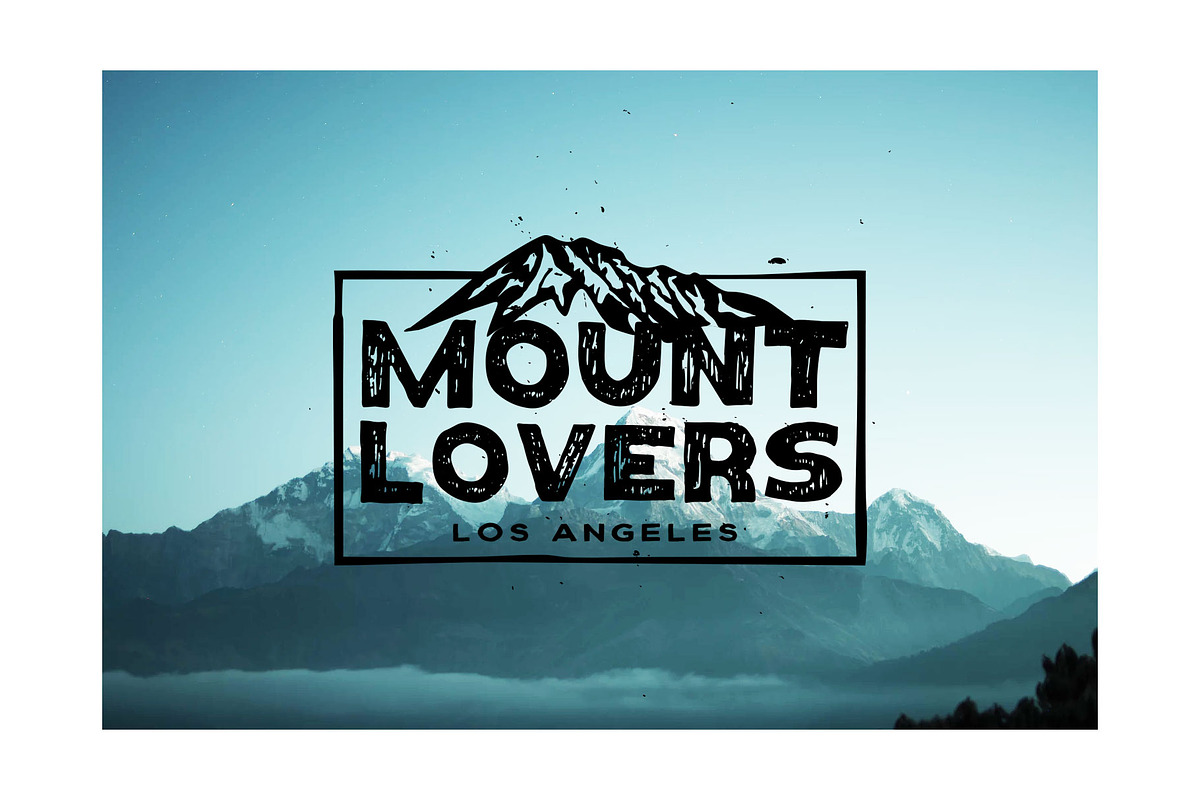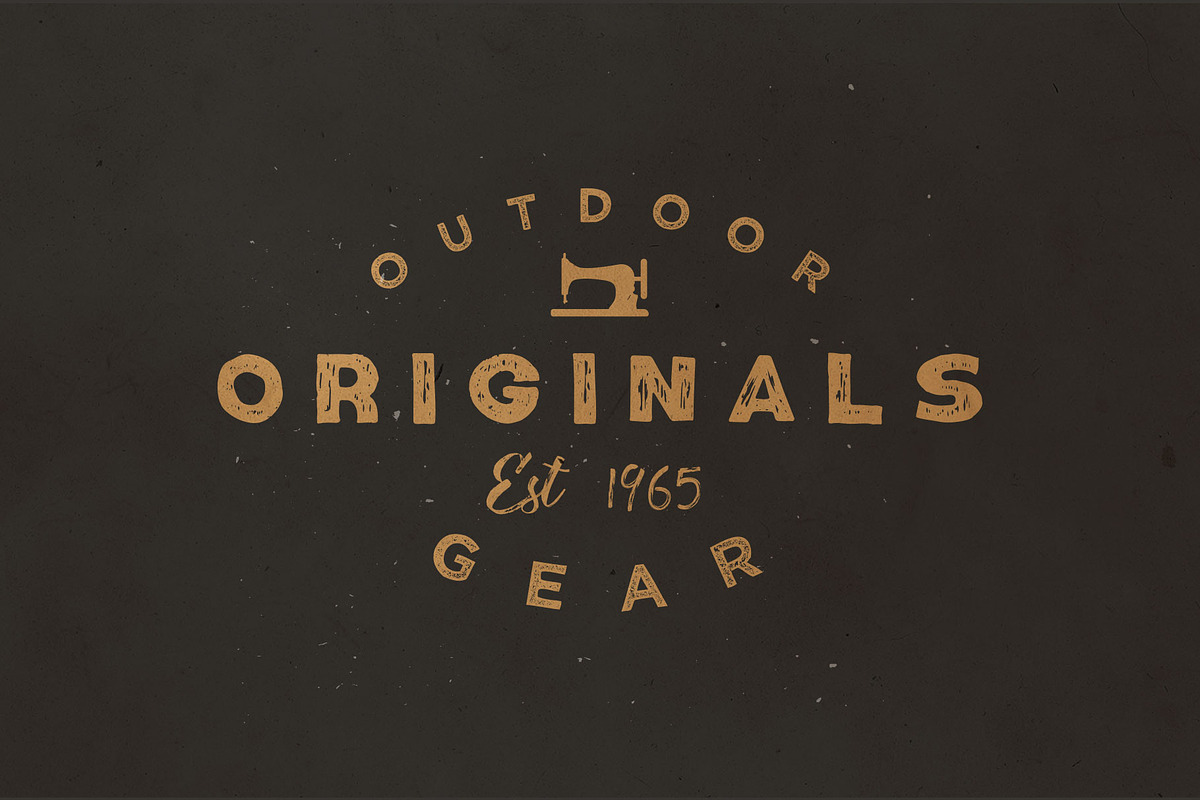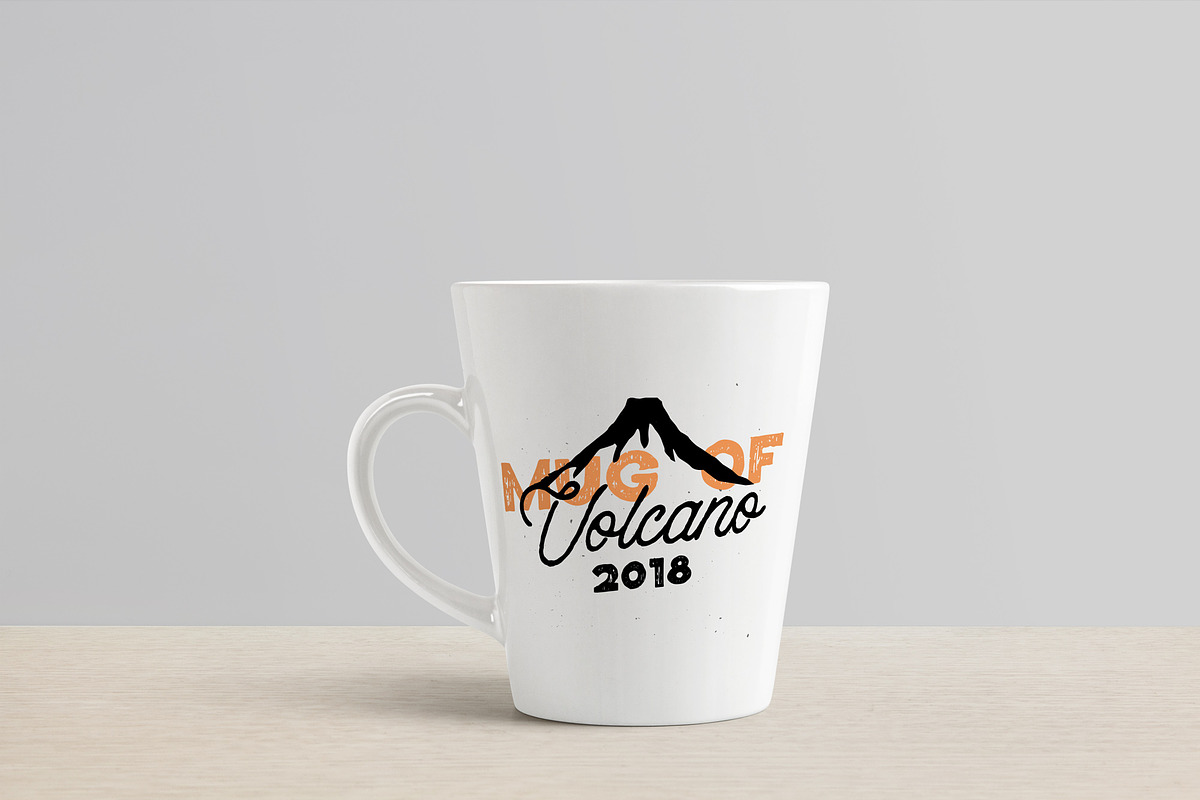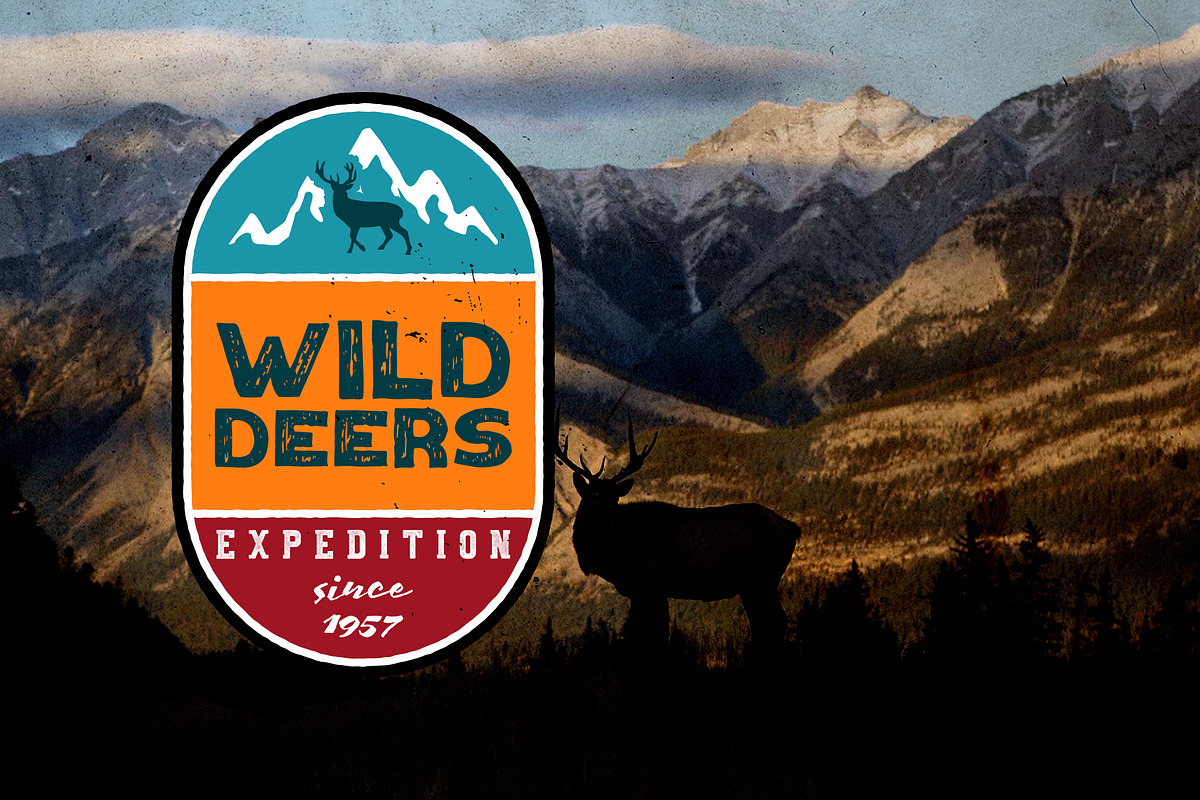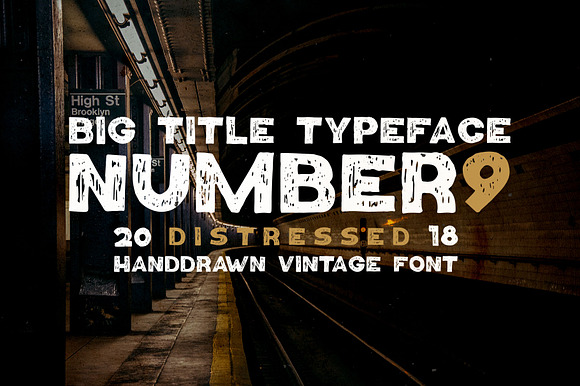
Number9 - Handdrawn Vintage Font
Why Number9? Why not1,2, ..., 100. Answer: I don't know ;) Just Number9 and I wish you ninefold pleasure of using this font. For what goals I created this font? Firstly, for logotypes. Just imagine rustic vintage logotype with big text in the middle written via Number9. Distressed texture and hand drawn effect will give your logo organicity and your logo will look alive. Secondly, for big titles. Wherever the grunge effect is appropriate, little gritty texture will add a twist to your headline. Use it with pleasure. Created by designer for designers and just good people.